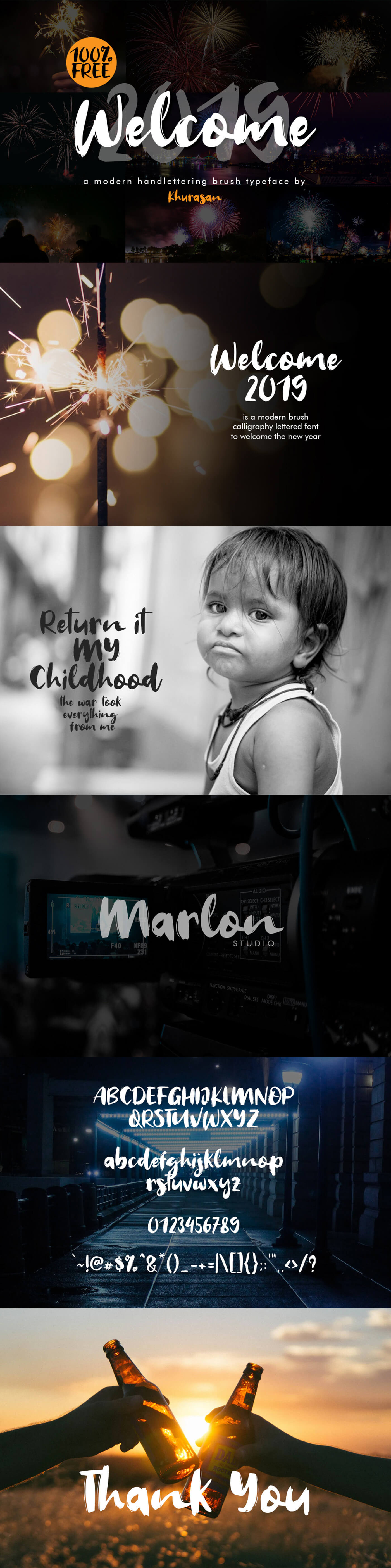
Welcome 2019 Font
Introducing you to a professional modern handlettering brush font, Welcome 2019 font. Use it for ads, logos, branding or anything that that you’ll need. This is free for commercial use so feel free to use it to prosper!